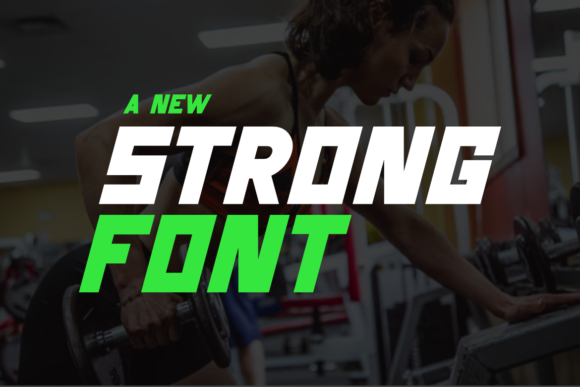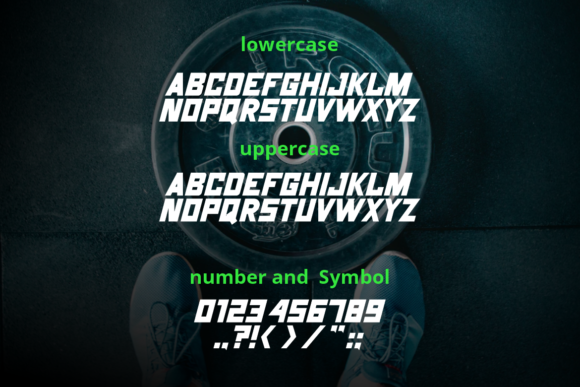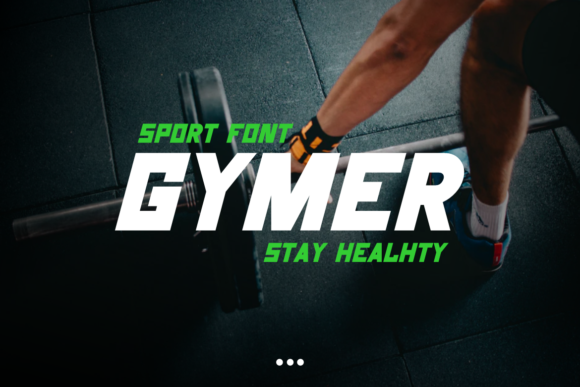
Gymer Font: Elevate Your Designs with a Unique and Versatile Typeface
In the world of design, fonts play a crucial role in conveying messages, evoking emotions, and creating lasting impressions. For designers and crafters seeking a distinctive and adaptable typeface, Gymer Font stands out as an exceptional choice. This simple yet sharp-looking display font is poised to inspire your creative works, from labeling and clothing to movie screens, posters, and more.
What Makes Gymer Font Special?
Gymer Font is not just another font; it’s a unique and ready-to-use typeface designed to elevate your designs. Its simplicity and sharp appearance make it versatile for various applications, including:
- Labeling: Add a professional touch to your product labels, packaging, or branding materials.
- Clothing: Create eye-catching apparel designs, from t-shirts to hoodies, with Gymer Font.
- Movie Screen: Use Gymer Font for movie titles, subtitles, or credits to add a touch of sophistication.
- Poster: Design striking posters for events, promotions, or advertisements with this attention-grabbing font.
- Movie Title: Make a bold statement with Gymer Font for your movie title sequences.
- Gigs: Create engaging and memorable gig posters or flyers for concerts, festivals, or workshops.
- Album Covers: Give your music albums a professional look with Gymer Font.
- Logos: Develop a strong brand identity with this distinctive font.
Endless Possibilities with Gymer Font
The true power of Gymer Font lies in its adaptability and the endless possibilities it offers for creative expression. Whether you’re a seasoned designer or a crafty DIY enthusiast, this font can help you:
- Create visually stunning designs that capture attention.
- Convey your message with clarity and style.
- Stand out in a crowded market with a unique typeface.
- Explore new design horizons and push your creative boundaries.
Why Choose Gymer Font?
With so many fonts available, why choose Gymer Font? Here are a few compelling reasons:
- Unique Design: Gymer Font boasts a distinctive design that sets it apart from more traditional typefaces.
- Versatility: Its simplicity and sharp appearance make it suitable for a wide range of applications.
- Easy to Use: Gymer Font is ready to use, saving you time and effort in your design process.
- Inspirational: This font is designed to inspire your creative works and help you achieve your design goals.
Gymer Font is more than just a typeface; it’s a key to unlocking your creative potential. With its unique design, versatility, and ease of use, this font is poised to become an essential tool in your design arsenal. Whether you’re working on a professional project or a personal passion project, Gymer Font can help you create stunning designs that leave a lasting impression. So why wait? Explore the endless possibilities of Gymer Font today and take your designs to the next level!